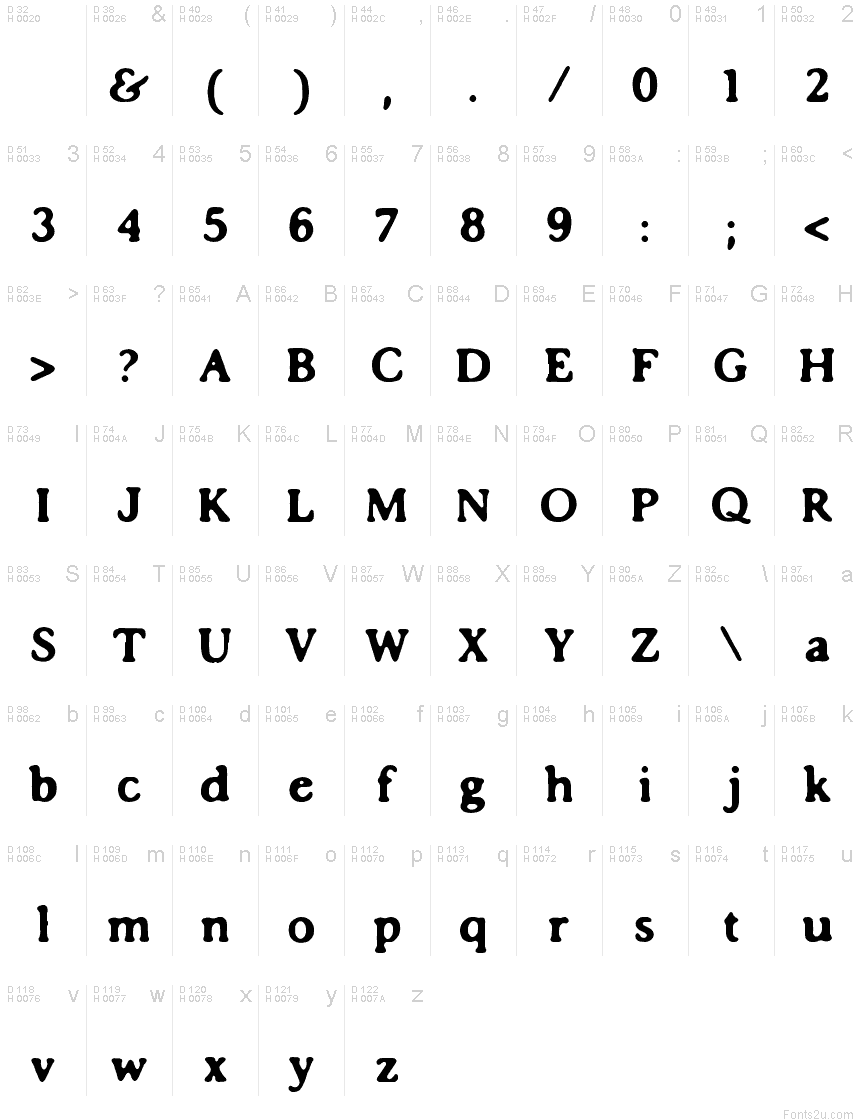
Impossibilium (BRK)
Impossibilium font by Aenigma Fonts is a free eroded display typeface. Its chunky, inky letters look like they’ve been pressed from soft rubber and left to bleed at the edges, creating a wonderfully lumpy, organic texture. Rounded forms and uneven contours give every word a slightly uncanny wobble, like vintage horror titles printed on worn-out film stock.
Using Impossibilium, headlines instantly feel strange, occult, or otherworldly, which works beautifully for horror posters, Halloween event graphics, experimental album covers, indie game titles, zines, and spooky merch. This free font thrives at large sizes where the blobby curves and ragged edges can really show. For a balanced layout, pair it with a clean, narrow sans serif in smaller text to keep the chaos contained.